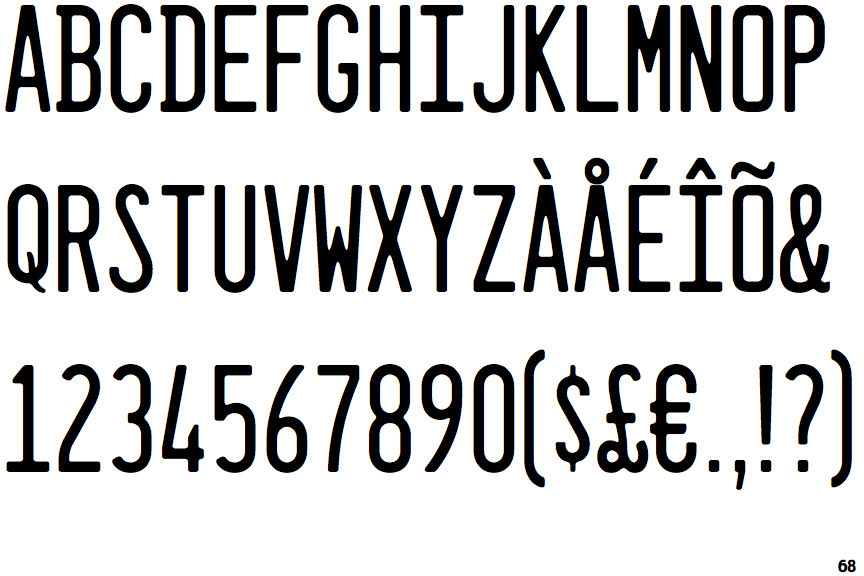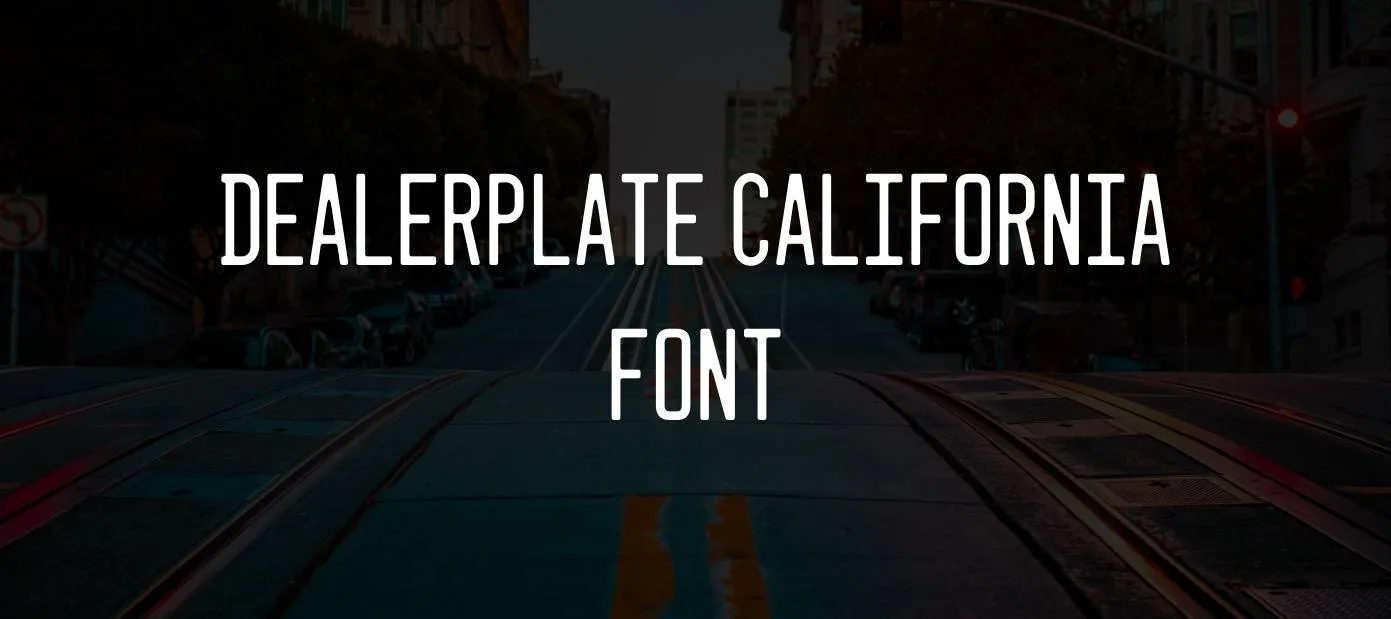
Dealerplate California Regular Font . ️ customize your own preview on ffonts.net to make sure it`s the right one for your. Dealerplate is a series of 17 fonts based on various embossed license plates in the united states and canada. In the united states and canada, embossed license plates have been used to create the dealerplate typeface, which consists of seventeen. This allows you to install the font on a computer and use it to create posters,. ️ this font has been downloaded 1,000+ times. This font includes a license that allows free commercial use: Sometimes referred to as a desktop license. Dealerplate is a series of 17 fonts based on various embossed license plates in the united states and canada. Its neat and clean lines make it a great font to use for headings or in the text body.
Its neat and clean lines make it a great font to use for headings or in the text body. Dealerplate is a series of 17 fonts based on various embossed license plates in the united states and canada. This font includes a license that allows free commercial use: ️ this font has been downloaded 1,000+ times. This allows you to install the font on a computer and use it to create posters,. In the united states and canada, embossed license plates have been used to create the dealerplate typeface, which consists of seventeen. Dealerplate is a series of 17 fonts based on various embossed license plates in the united states and canada. ️ customize your own preview on ffonts.net to make sure it`s the right one for your. Sometimes referred to as a desktop license.
Dealerplate California Regular Font In the united states and canada, embossed license plates have been used to create the dealerplate typeface, which consists of seventeen. This font includes a license that allows free commercial use: Dealerplate is a series of 17 fonts based on various embossed license plates in the united states and canada. ️ customize your own preview on ffonts.net to make sure it`s the right one for your. ️ this font has been downloaded 1,000+ times. This allows you to install the font on a computer and use it to create posters,. In the united states and canada, embossed license plates have been used to create the dealerplate typeface, which consists of seventeen. Dealerplate is a series of 17 fonts based on various embossed license plates in the united states and canada. Sometimes referred to as a desktop license. Its neat and clean lines make it a great font to use for headings or in the text body.
Dealerplate California free font Dealerplate California Regular Font Sometimes referred to as a desktop license. ️ customize your own preview on ffonts.net to make sure it`s the right one for your. In the united states and canada, embossed license plates have been used to create the dealerplate typeface, which consists of seventeen. Its neat and clean lines make it a great font to use for headings or in. Dealerplate California Regular Font.
Dealerplate California Bold and Clean Sans Serif Font Dealerplate California Regular Font Its neat and clean lines make it a great font to use for headings or in the text body. Dealerplate is a series of 17 fonts based on various embossed license plates in the united states and canada. Sometimes referred to as a desktop license. ️ customize your own preview on ffonts.net to make sure it`s the right one for. Dealerplate California Regular Font.
Dealerplate California Font by Typodermic · Creative Fabrica Dealerplate California Regular Font Dealerplate is a series of 17 fonts based on various embossed license plates in the united states and canada. ️ customize your own preview on ffonts.net to make sure it`s the right one for your. Dealerplate is a series of 17 fonts based on various embossed license plates in the united states and canada. In the united states and canada,. Dealerplate California Regular Font.
Dealerplate California Font Free Download Dealerplate California Regular Font Dealerplate is a series of 17 fonts based on various embossed license plates in the united states and canada. This allows you to install the font on a computer and use it to create posters,. In the united states and canada, embossed license plates have been used to create the dealerplate typeface, which consists of seventeen. Its neat and clean. Dealerplate California Regular Font.
Dealerplate Font · 1001 Fonts Dealerplate California Regular Font Its neat and clean lines make it a great font to use for headings or in the text body. In the united states and canada, embossed license plates have been used to create the dealerplate typeface, which consists of seventeen. Dealerplate is a series of 17 fonts based on various embossed license plates in the united states and canada. ️. Dealerplate California Regular Font.
Dealerplate Font · 1001 Fonts Dealerplate California Regular Font This font includes a license that allows free commercial use: ️ customize your own preview on ffonts.net to make sure it`s the right one for your. Dealerplate is a series of 17 fonts based on various embossed license plates in the united states and canada. In the united states and canada, embossed license plates have been used to create the. Dealerplate California Regular Font.
Download free Dealerplate California font dealerplate.california.ttf Dealerplate California Regular Font Dealerplate is a series of 17 fonts based on various embossed license plates in the united states and canada. Sometimes referred to as a desktop license. In the united states and canada, embossed license plates have been used to create the dealerplate typeface, which consists of seventeen. This allows you to install the font on a computer and use it. Dealerplate California Regular Font.
Dealerplate California Font Free Download Dealerplate California Regular Font Dealerplate is a series of 17 fonts based on various embossed license plates in the united states and canada. ️ this font has been downloaded 1,000+ times. This allows you to install the font on a computer and use it to create posters,. Dealerplate is a series of 17 fonts based on various embossed license plates in the united states. Dealerplate California Regular Font.
Dealerplate Font Free Font Download Fonts Tube Dealerplate California Regular Font ️ customize your own preview on ffonts.net to make sure it`s the right one for your. Dealerplate is a series of 17 fonts based on various embossed license plates in the united states and canada. ️ this font has been downloaded 1,000+ times. Dealerplate is a series of 17 fonts based on various embossed license plates in the united states. Dealerplate California Regular Font.